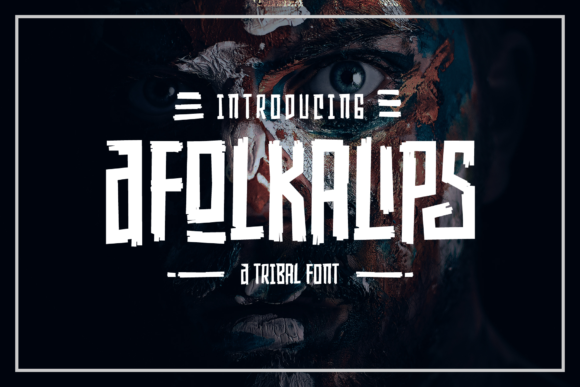
The Designer’s Delight: Afolkalips Font
I still remember the frustration of working on a project, hours spent searching for the perfect font, only to end up with something that just didn’t quite fit. My client wanted a modern, yet classic look, and I was determined to deliver. That’s when I stumbled upon Afolkalips, a unique stand-out display font that effortlessly put a fresh spin on my design. In this article, I’ll share my experience with Afolkalips, its features, and how to make the most of it in your designs.
An Honest Review of Afolkalips
- ✨ Unique Character: Afolkalips has a distinct personality that sets it apart from other fonts.
- ✅ Versatility: It can be used for a wide range of design projects, from modern branding to classic advertising.
- 💡 Instant Recognition: The font’s stylish alternates and glyphs make it easy to create eye-catching text.
While Afolkalips is an excellent font, there are a few things to keep in mind:
- 🤔 Legibility at Small Sizes: Like many display fonts, Afolkalips may not be the best choice for body text or small font sizes.
- ⚠️ Glyph Compatibility: Some glyphs might not work seamlessly with all design software or platforms.
The Backstory of Afolkalips
Afolkalips was designed with the intention of creating a modern, yet timeless font. Inspired by classic typography and modern design trends, Afolkalips brings a fresh spin to the world of display fonts. Although the designer’s story is shrouded in mystery, their passion for typography and design is evident in every detail of Afolkalips.
Q: What makes Afolkalips unique?
A: Afolkalips boasts a distinct personality with its stylish alternates and glyphs, making it perfect for designers looking for a modern yet classic font.
Q: Is Afolkalips suitable for body text?
A: While Afolkalips is a beautiful font, it’s primarily designed for display purposes. For body text, consider a font with better legibility at smaller sizes.